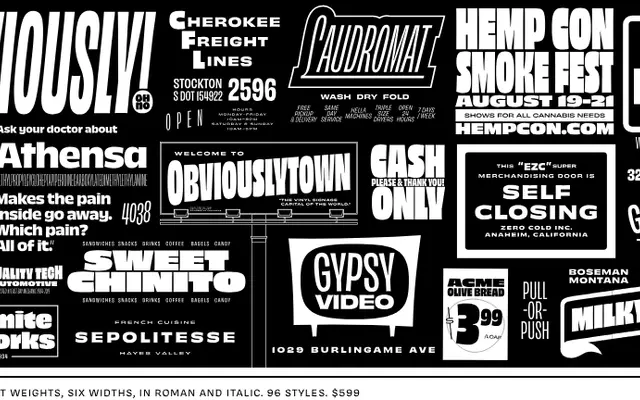
Obviously
A 96-style grotesque spanning six widths and eight weights, conceived from vinyl signage, Impact stretched to absurdity and hand-painted commercial lettering.
Built across six widths from Compressed to Extended and eight weights from Thin to Super, the family gives equal attention to the squat, peeling vinyl billboard and the expansive painted shopfront. Each width ships with a full roman and italic set, and a variable font covers the entire range including a semislant axis unavailable in the static cuts. OpenType features include alternate characters for A, G, T and Y, lining and non-lining figures, case-sensitive punctuation and fractions.
A wide-ranging grotesque family drawing from the tradition of American commercial display types, impact-style ultra-condensed faces and extended vinyl-sign lettering. The breadth of widths from Compressed to Extended puts it firmly in the display grotesque camp.